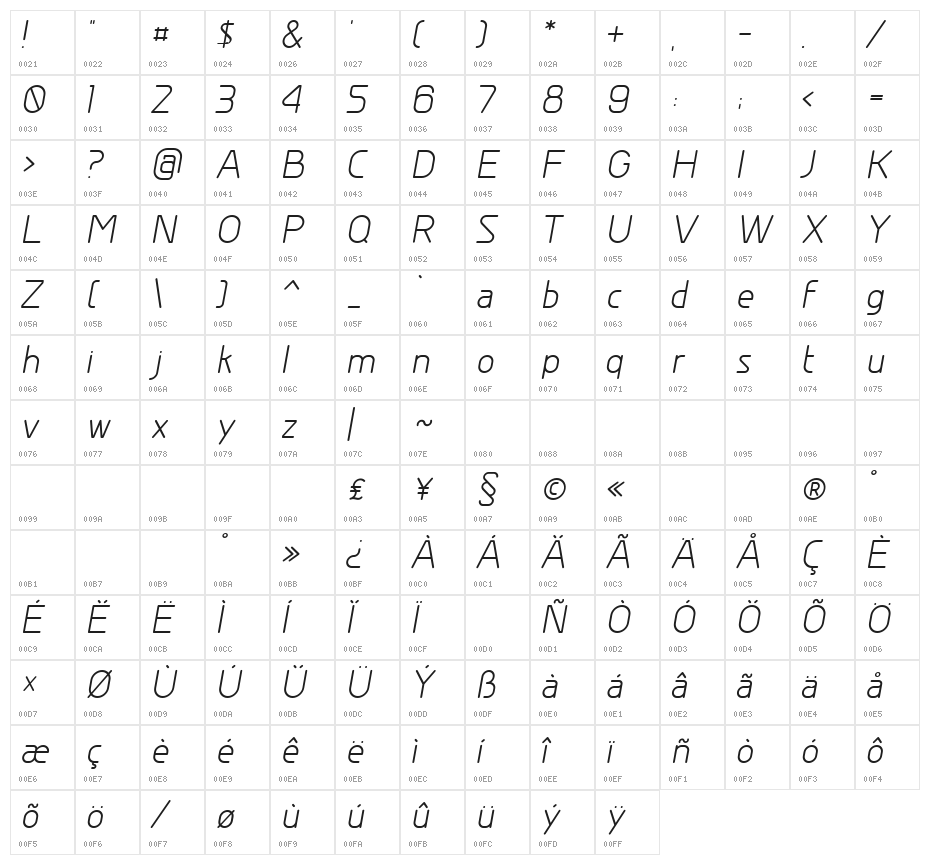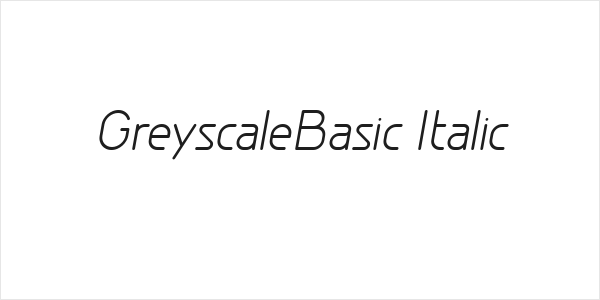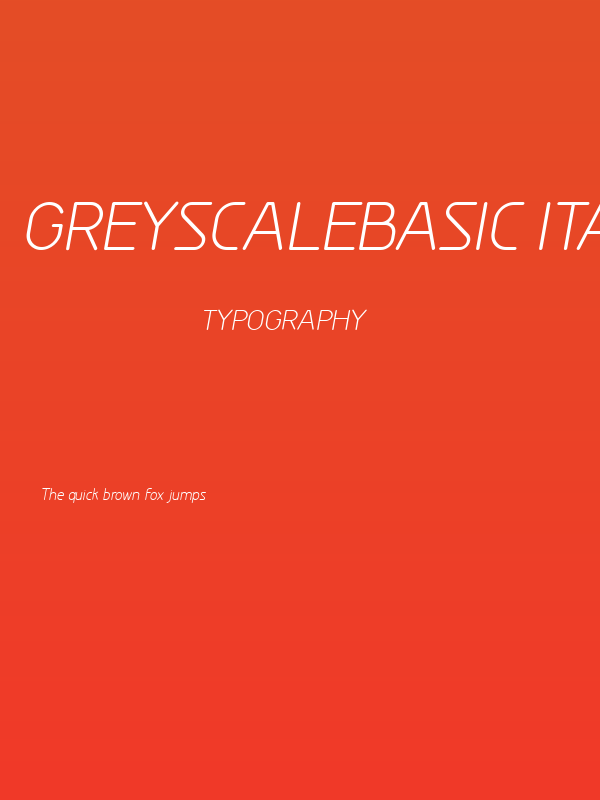
GreyscaleBasic Italic Font
GreyscaleBasic Italic Description
This font features a sleek, modern design with a slight italic slant, giving it a dynamic and forward-moving appearance. The characters are clean and streamlined, with smooth curves and a consistent stroke width that contributes to its contemporary aesthetic. The uppercase letters are tall and slightly narrow, while the lowercase letters maintain a balanced proportion, enhancing readability. The numerals are distinct and align well with the overall style, making them suitable for various applications. Special characters are well-integrated, maintaining the font's cohesive look. This font's design is versatile, making it suitable for both digital and print media.
| Use Case | Headlines, Body text, Logos |
| Proposed Projects | Ideal for branding, advertising, web design, and editorial layouts where a modern and professional look is desired. |